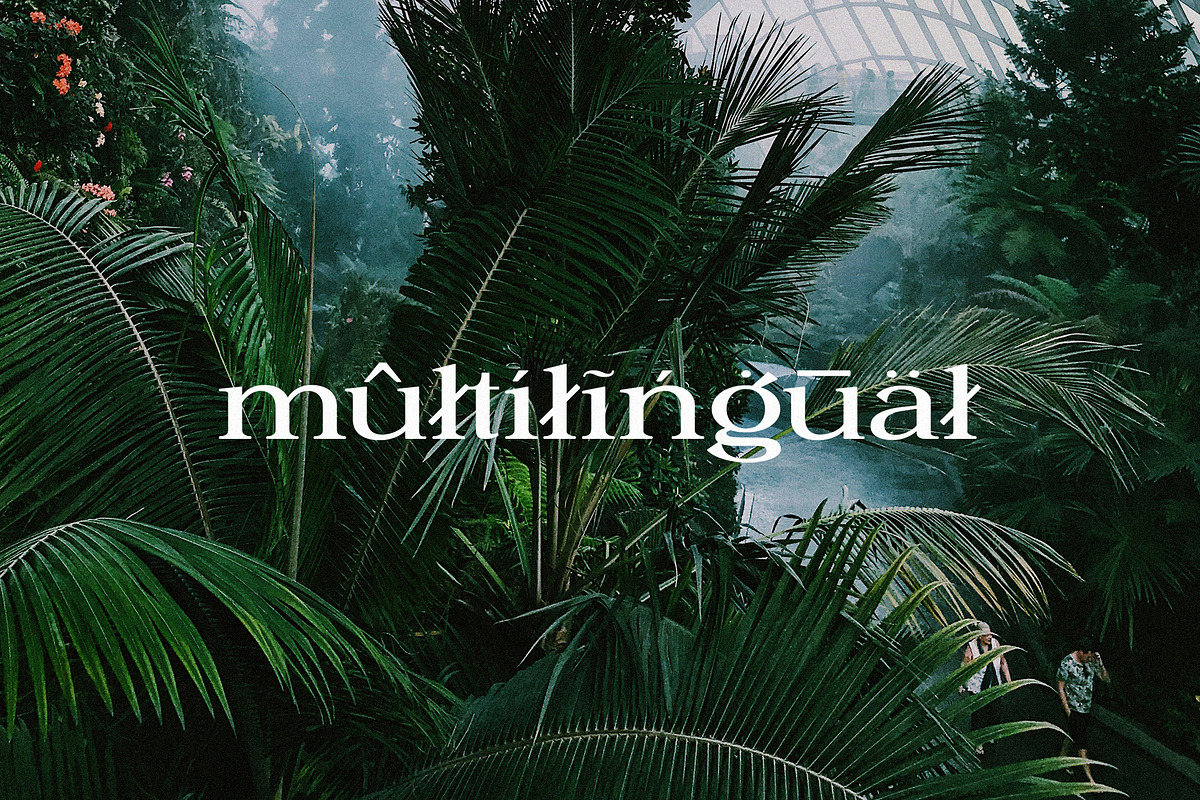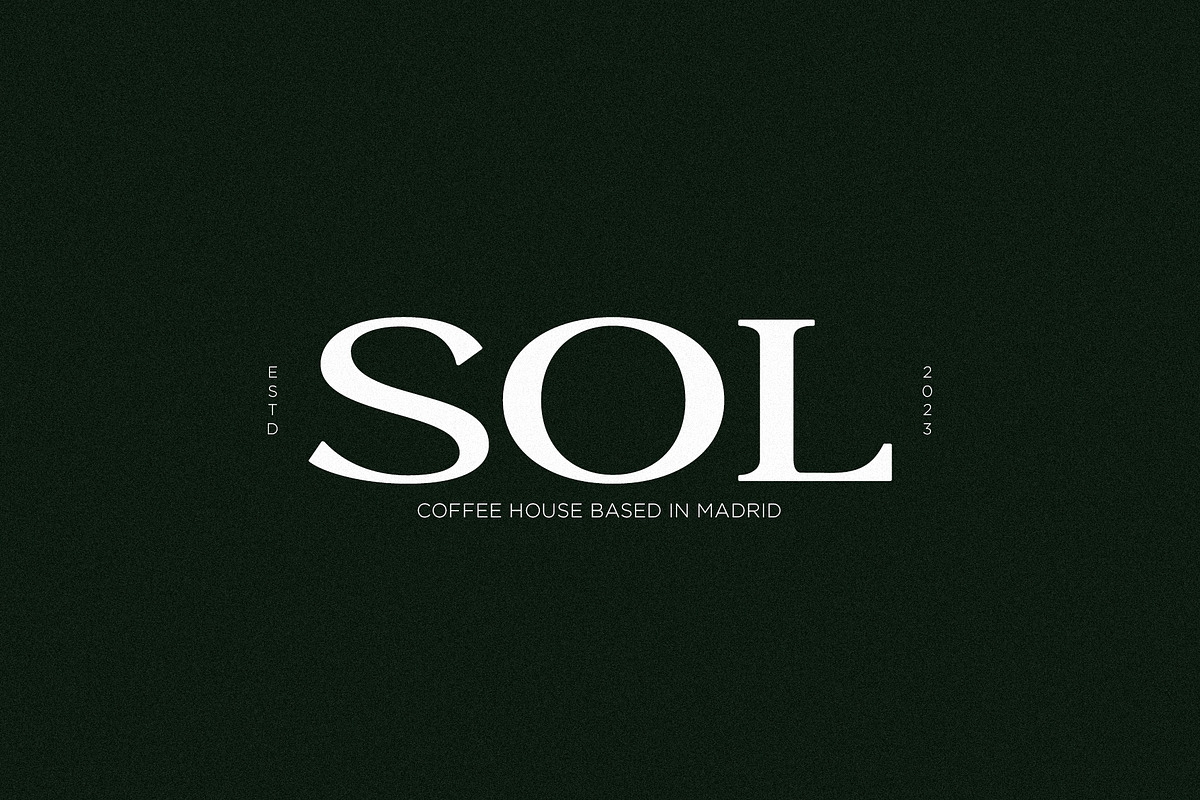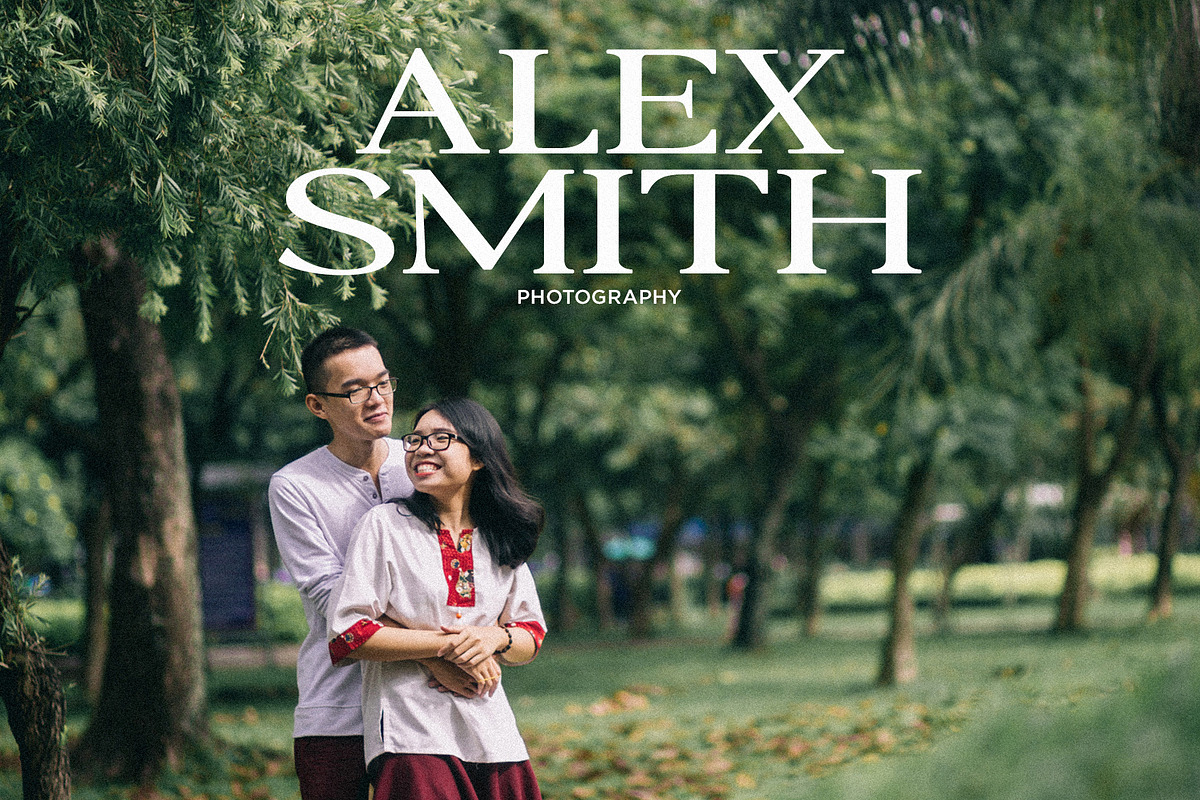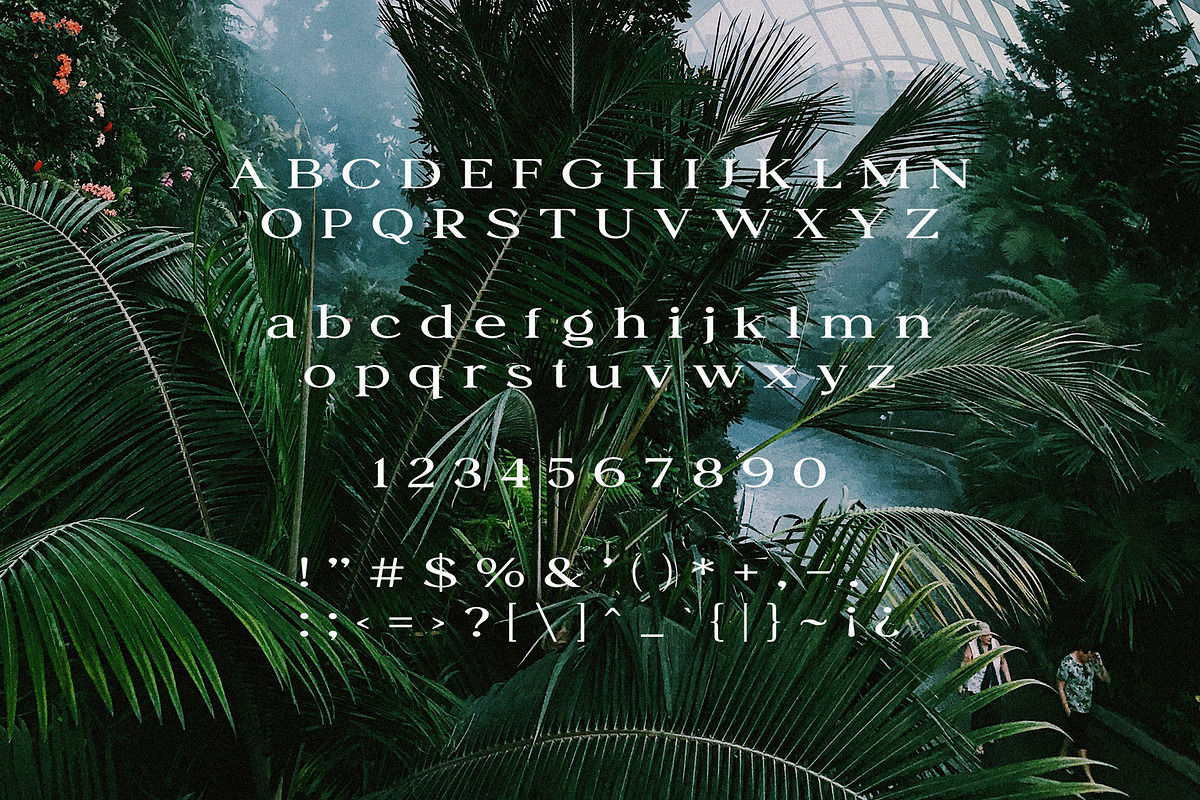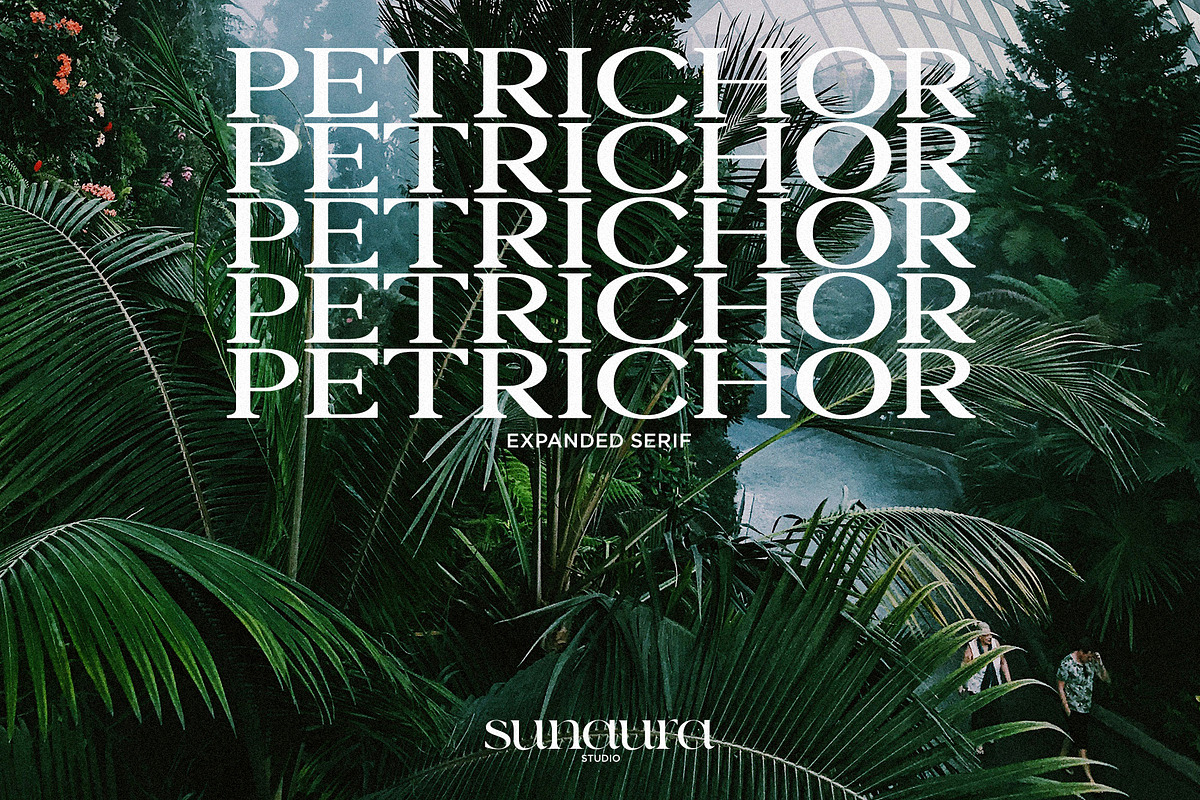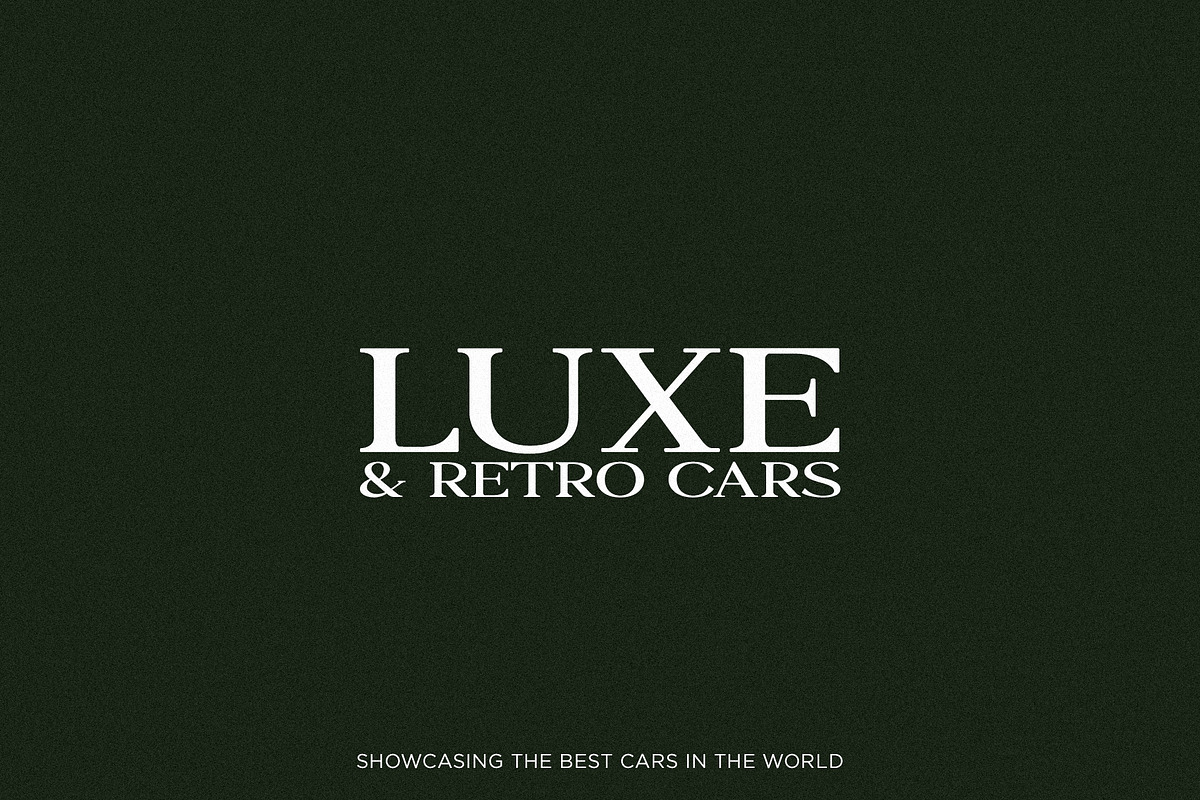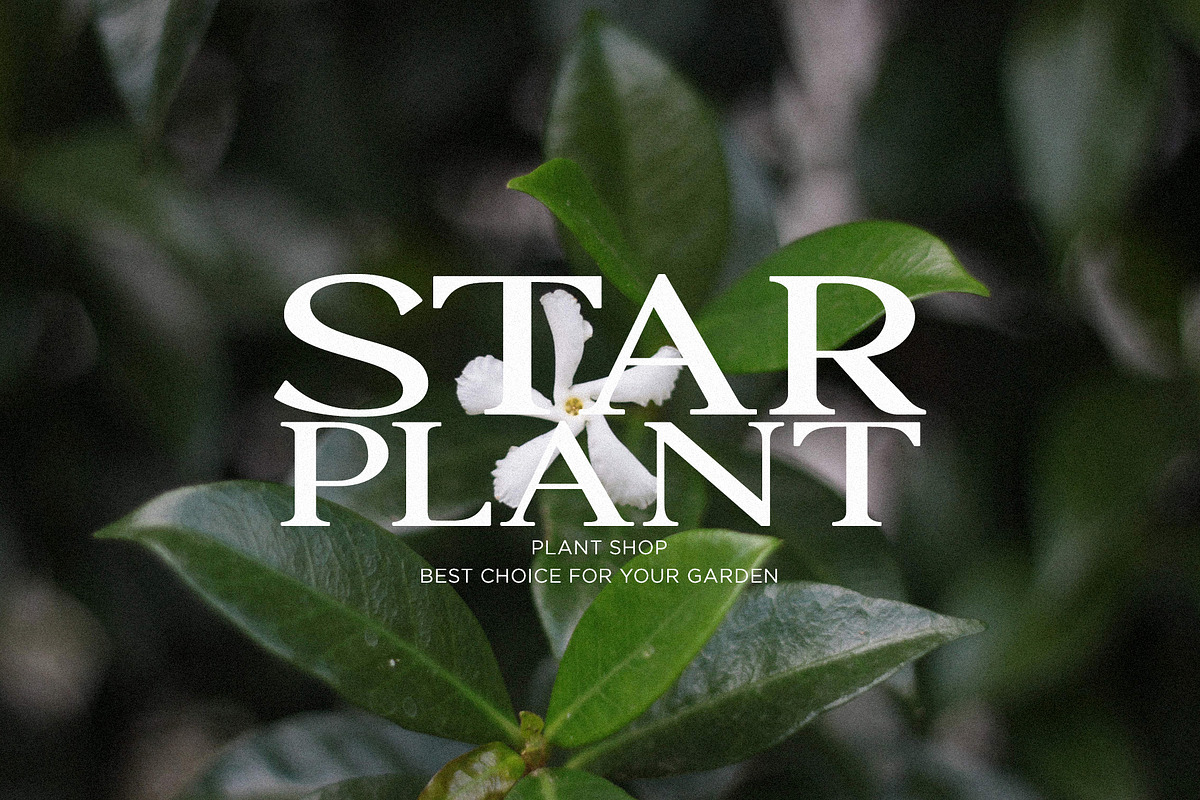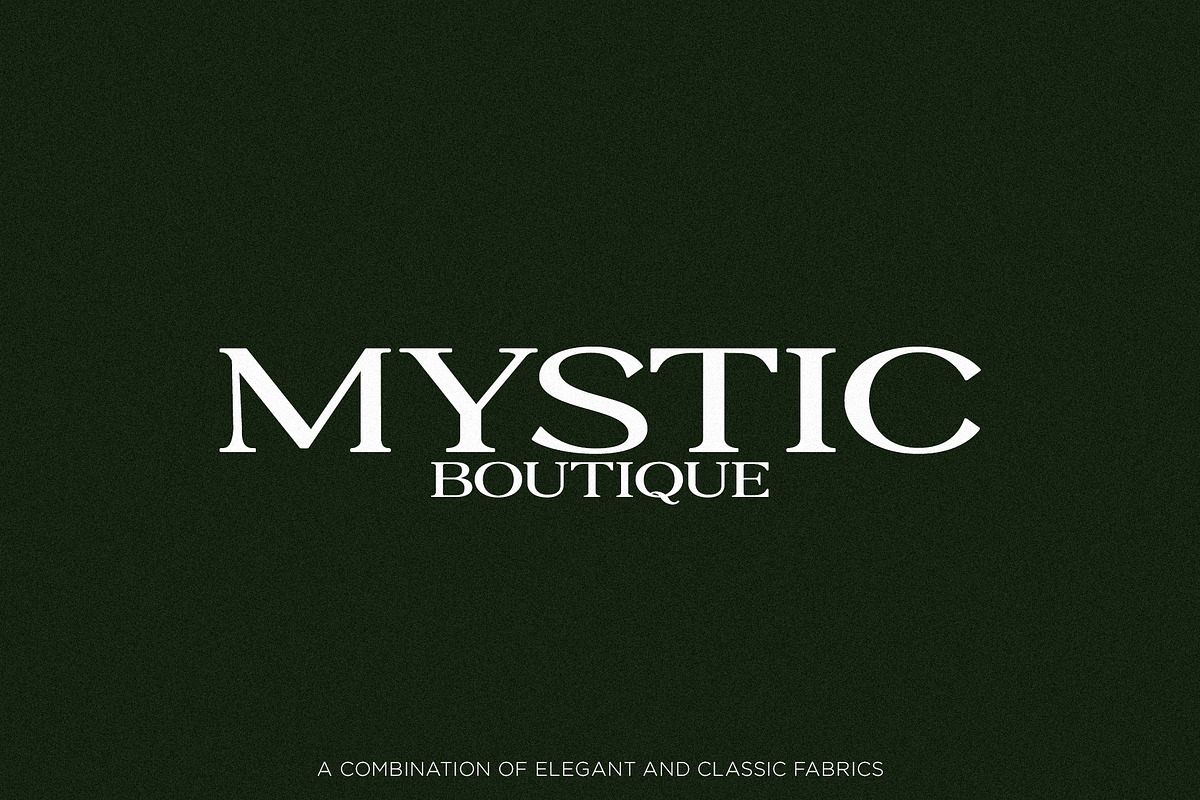
Petrichor - Expanded Serif
Petrichor is a modern and elegant expanded serif typeface, combining classic serif features with a contemporary twist. Its slightly wider letterforms make it ideal for both body text and display use, adding sophistication to any design project. Petrichor features multilingual support, over 250+ glyphs, uppercase & lowercase letters, numbers & symbols.